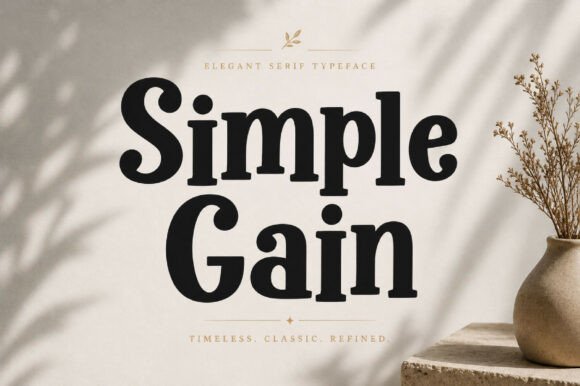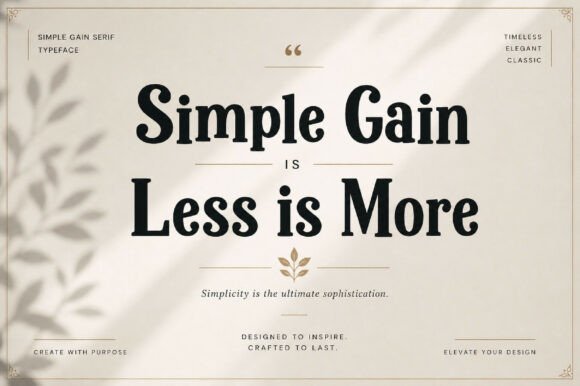
Introduction to Simple Gain Font
Have you ever been stuck in the middle of a creative project, desperately searching for the perfect font to give it that extra oomph? You know, that moment when everything seems perfect, but something is missing – a spark, a dash of personality, a pinch of vintage charm? That’s exactly where the Simple Gain Font comes in – a game-changing addition to your design arsenal.
With its robust serif shapes and dazzling details, this high-quality font is a design resource that’s sure to elevate your creative vision. Whether you’re working on a project that requires a touch of classic elegance or a bold, attention-grabbing appeal, the Simple Gain Font has got you covered. And the best part? This stunning font is now available for free download, complete with a transparent background, making it the perfect addition to your design library.
- High-quality design: The Simple Gain Font is crafted with precision to deliver a sophisticated look that elevates any creative project.
- Transparent background: The font’s transparent background allows for seamless integration with various design elements, providing a clean and modern aesthetic.
- Unique characteristics: The Simple Gain Font features a distinctive, modern design that sets it apart from other fonts, making it a valuable addition to any design project.
Honest Review: Simple Gain Font
I recently stumbled upon the Simple Gain Font while searching for a free download for my creative project. I was thrilled to find this high-quality font, perfect for adding a touch of sophistication to my design.
- ✨ Unique and modern design that’s perfect for creating a statement in any design project.
- ✨ Offers a transparent background, making it easy to combine with other design elements.
- ✨ Easy to read and use, even in small font sizes.
- ⚠️ Limited character set, which may not be ideal for projects requiring extensive typing.
- ⚠️ Not all characters are available in bold or italic weights.
Overall, I’m impressed with the Simple Gain Font. Its modern design and high-quality typography make it an excellent addition to any design project. While it may have some limitations, I believe its benefits far outweigh its drawbacks. I would definitely recommend it as a design resource for anyone looking to add a touch of elegance to their creative project.
Simple Gain Font
The Simple Gain Font is a high-quality, free download design resource perfect for any creative project. With a transparent background, this font is versatile and easy to use in a variety of applications.
Tips for Getting the Most Out of Simple Gain Font
To get the most out of the Simple Gain Font, experiment with different font sizes, colors, and combinations with other design elements. This font is perfect for creating eye-catching headings, titles, and other text-based designs.
The Simple Gain Font is perfect for a variety of creative projects, including blog posts, social media graphics, presentations, and more. Its high quality and transparent background make it a valuable design resource for any project.